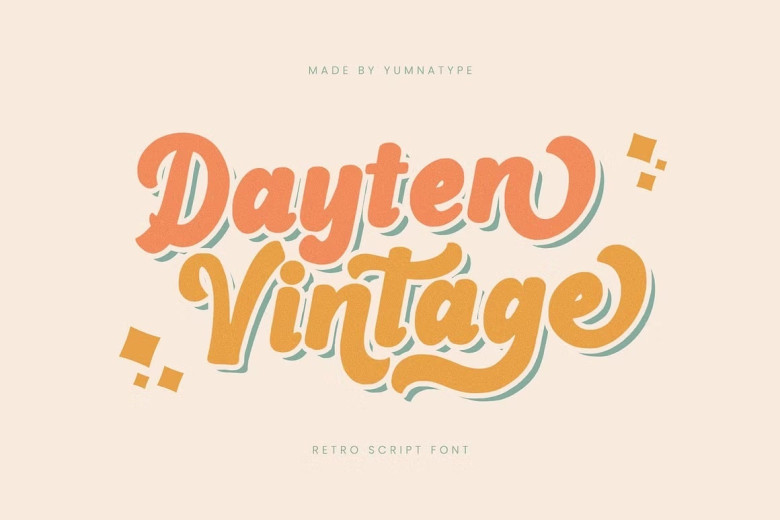
Dayten Vintage Font
Dayten Vintage is an exquisite script font designed to transport you back in time through its retro aesthetic. Crafted with solid texturing and round shapes, Dayten Vintage exudes warmth and nostalgia while its weighty, round forms recall old advertisements or signs popular at that time.
Each letter features graceful curves and flowing lines to evoke feelings of wonder and fluidity reminiscent of script fonts from by gone years.
Dayten Vintage Retro Script Font